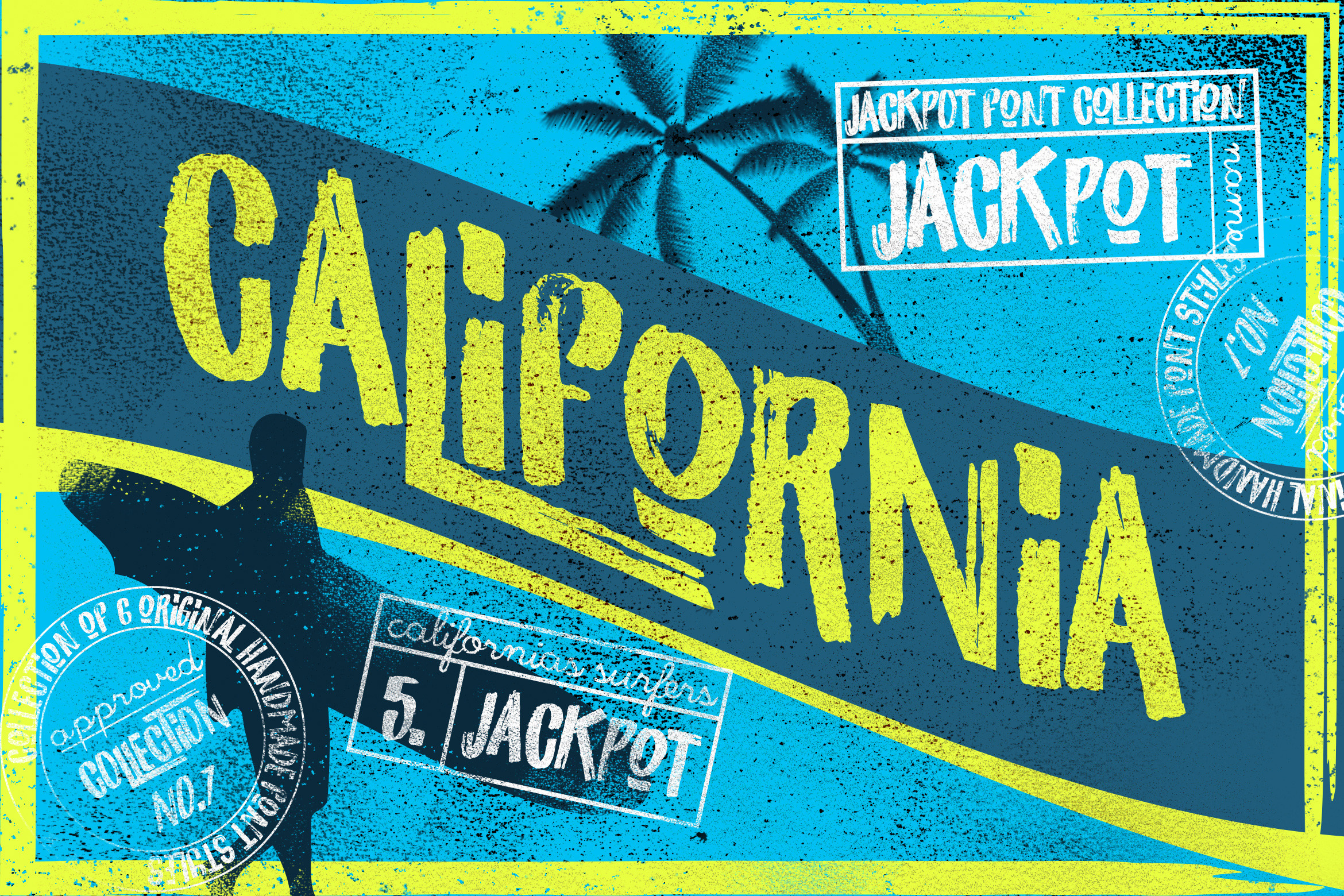
California Jackpot Font
California Jackpot Font is brush font including all US glyphs and it comes in regular,slant version and script version.
Ideal for loud messages. Made with flat marker adding realistic moves in it. Very interesting to use for logos, name tags, handwritten quotes, product packaging, merchandise, social media & greeting cards .Also, ideal to make t-shirts design and other clothing products.
JACKPOT - Hand brushed font including all uppercase letters which has a complete set of A-Z, and support for US glyphs letters. Combinate uppercase and lowercase letters to get interesting text styles.
JACKPOT ITALIC - Italic hand brushed font including All Caps letters which has a complete set of A-Z, and support for US glyphs letters.
JACKPOT SHORT - Hand brushed font including all uppercase letters which has a complete set of A-Z, and support for US glyphs letters.
JACKPOT SCRIPT Hand brushed script font including all lowercase letters which has a complete set of A-Z.
JACKPOT LOWERCASE Hand brushed font including all uppercase and lowercase letters which has a complete set of A-Z, and support for US glyphs letters. Combinate uppercase and lowercase letters to get interesting text styles.
JACKPOT SHORT ITALIC 17° slant hand brushed font including all uppercase letters which has a complete set of A-Z.
JACKPOT SCRIPT ITALIC 17° slant hand brushed script font including all lowercase letters which has a complete set of A-Z.
JACKPOT LOWERCASE ITALIC 17° slant hand brushed font including all uppercase and lowercase letters which has a complete set of A-Z, and support for US glyphs letters. Combinate uppercase and lowercase letters to get interesting text styles.